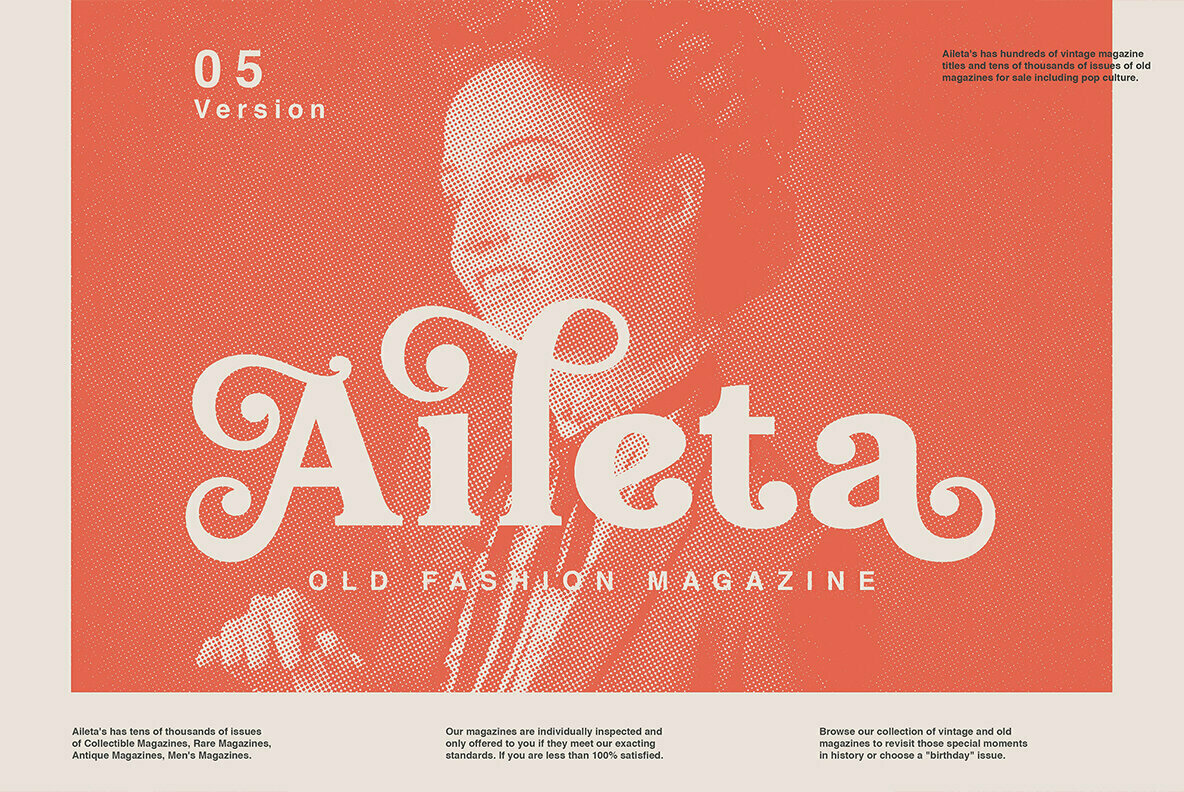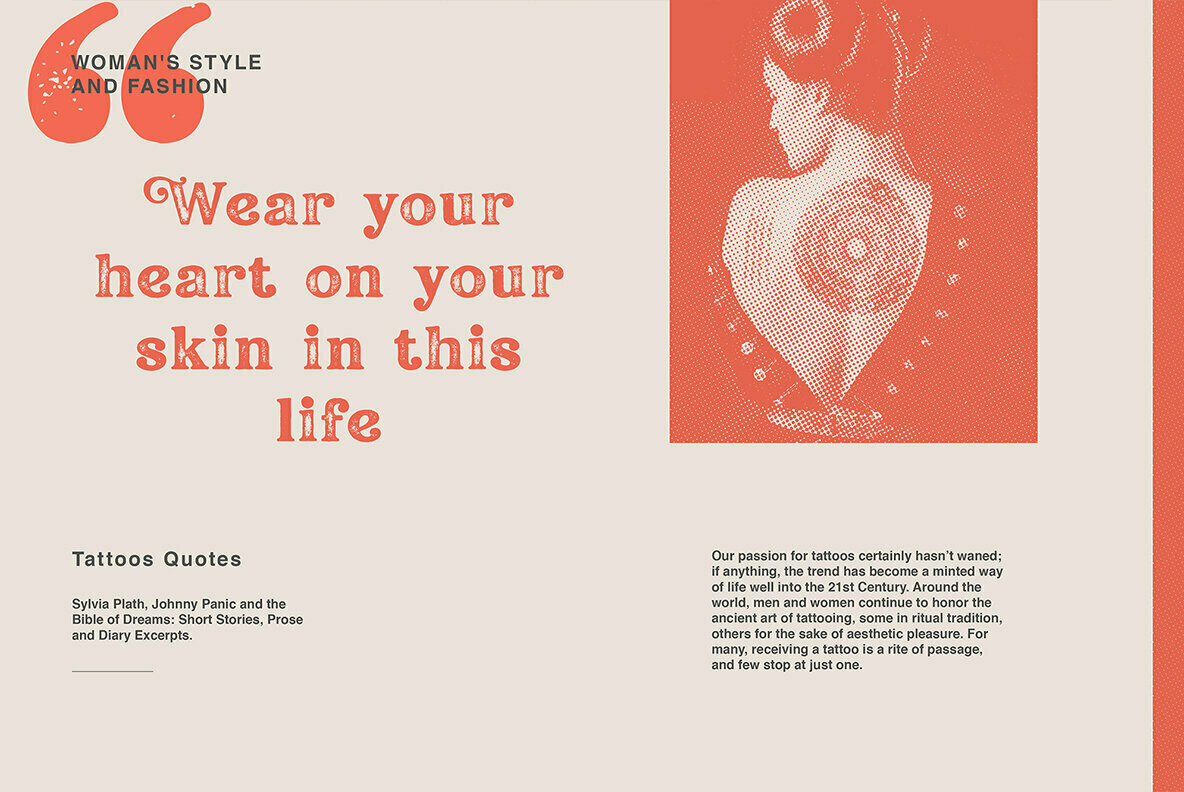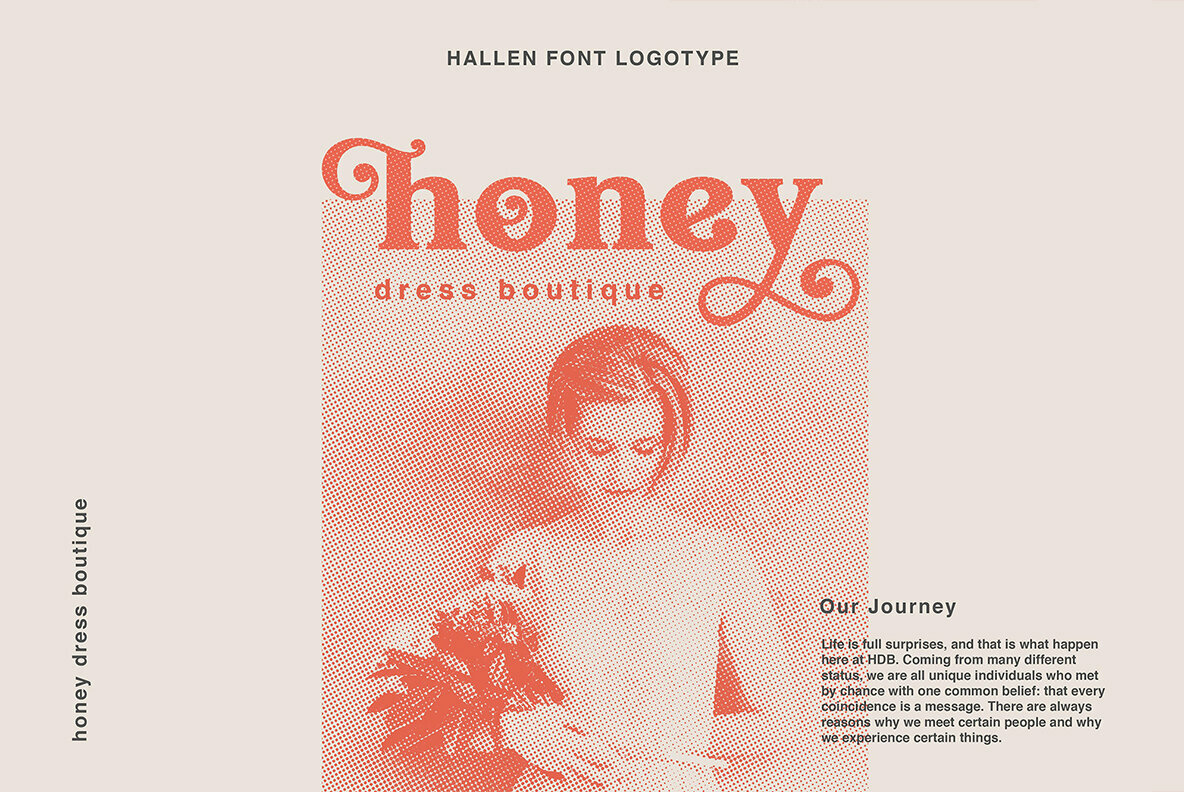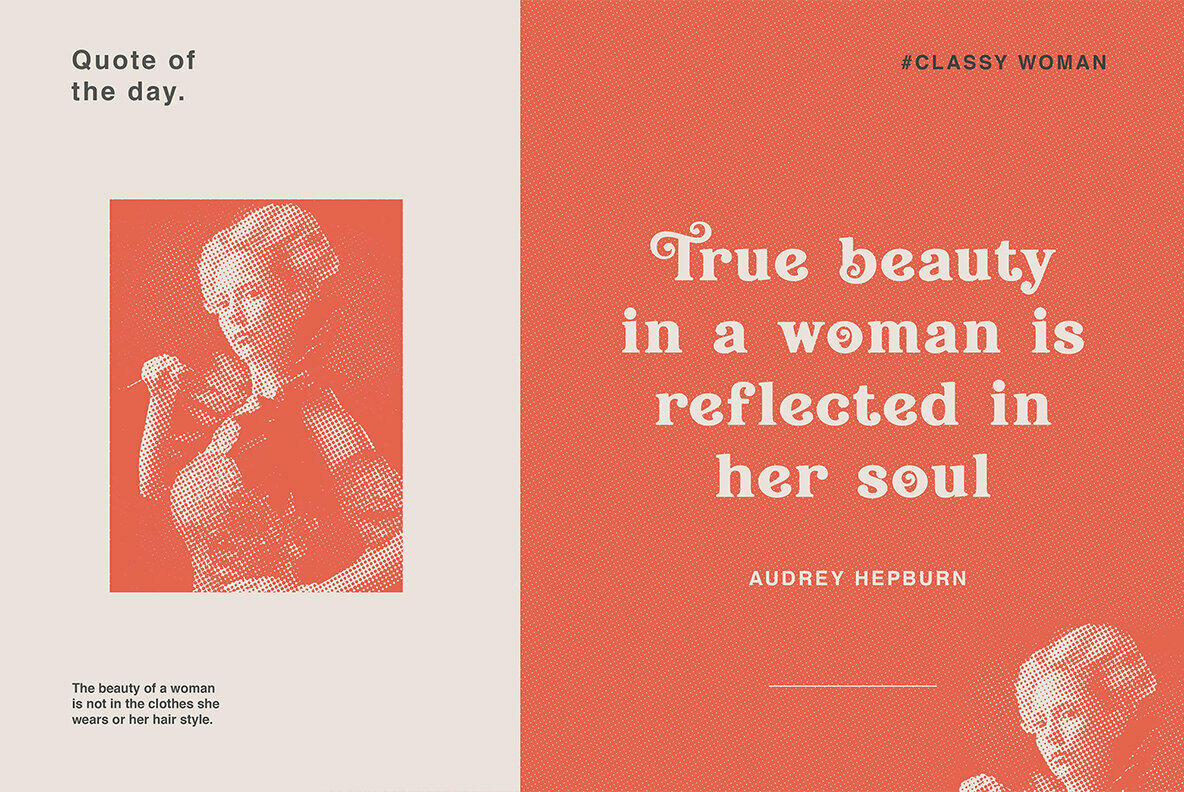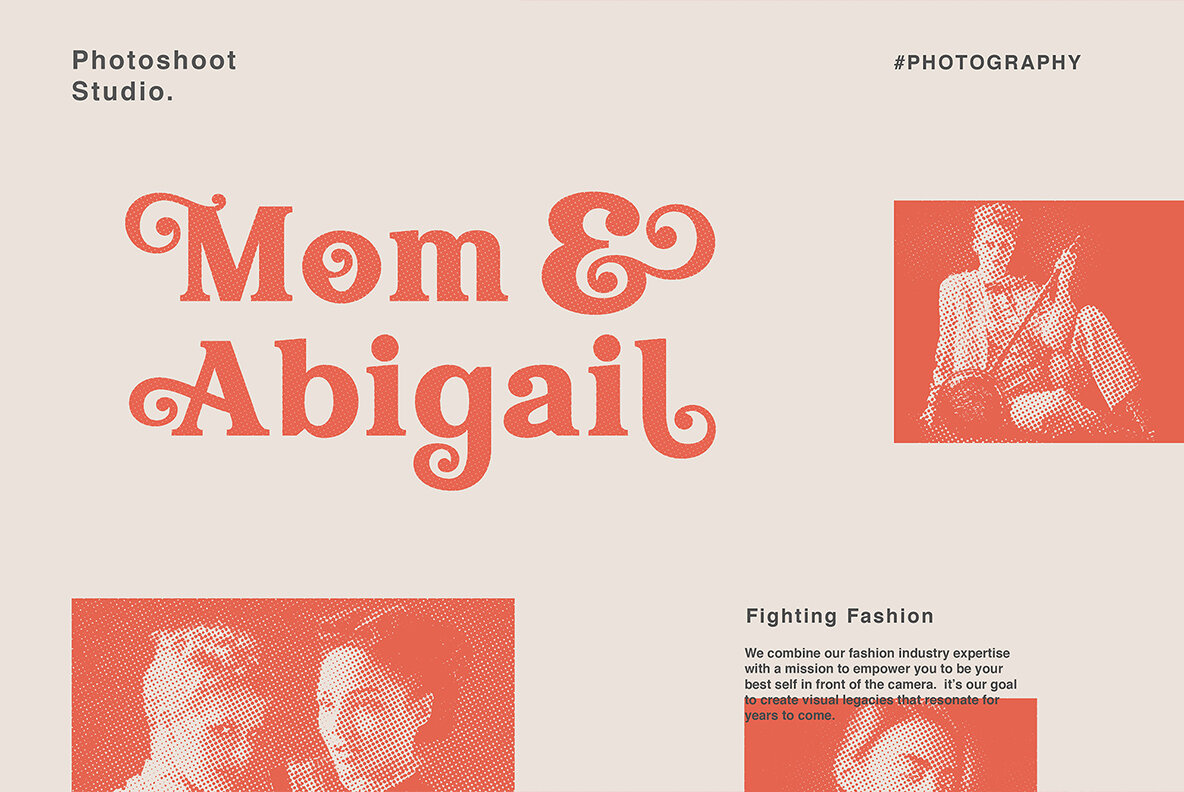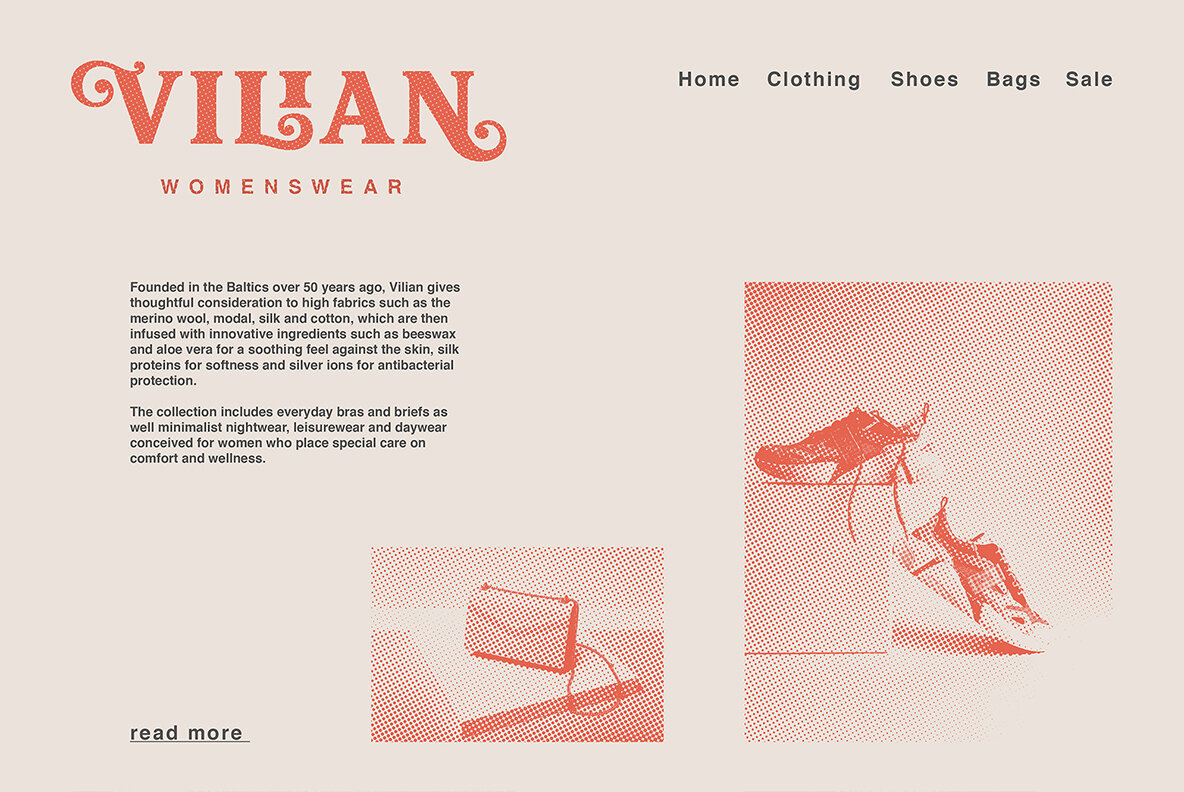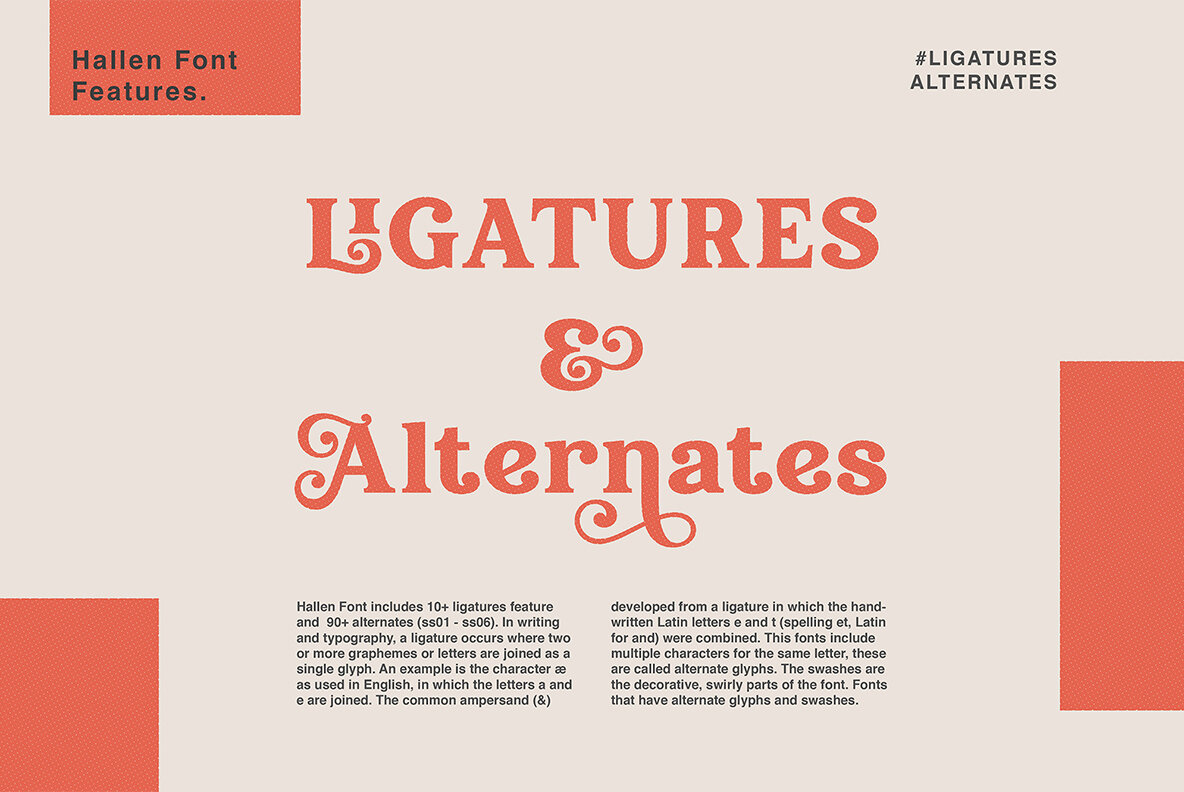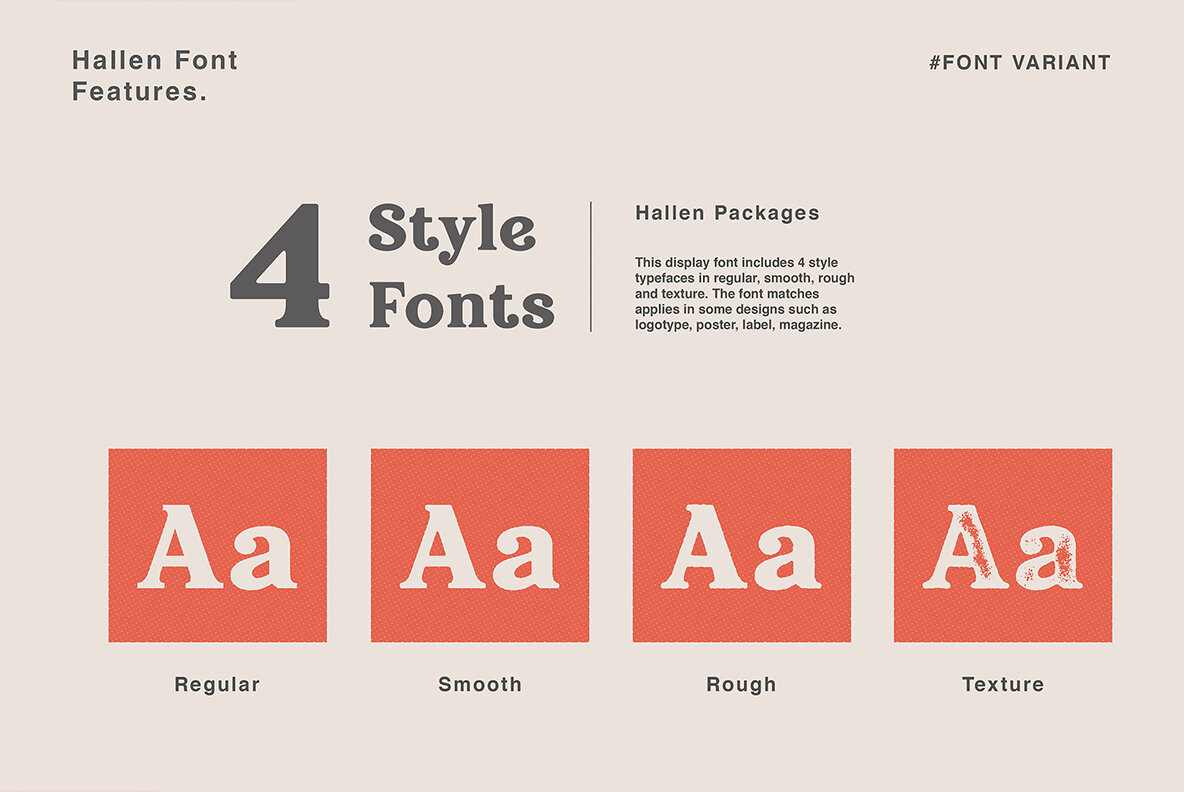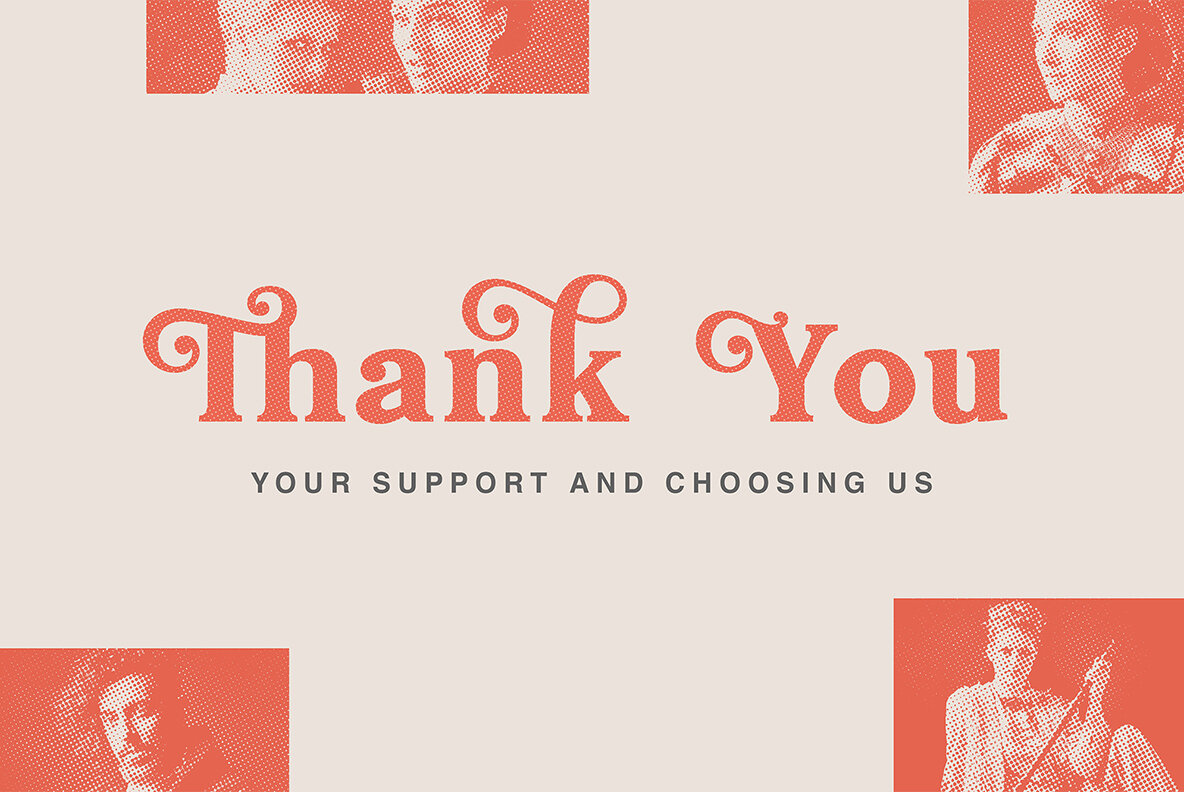
Hallen Font
Hallen captures the essence of classic typography with a modern twist, designed specifically for those seeking to enhance their magazine headlines. This serif display font by Edi Gunawan offers unique swashes and alternatives that make each character a statement. This typeface delights in offering an array of styles, each contributing its own flavor to your design projects. Whether you're crafting logos, posters, or invitations, Hallen's versatility shines through with its four stylistic variants: regular, smooth, rough, and textured. Each option complements sophisticated design tastes, making any composition appear polished and professional. Features:Hallen: Distinctive Serif Display Typeface